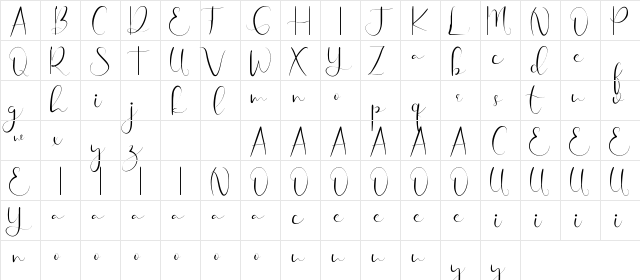
Gingar Bread Demo Script Regular
| Foundry | Edric Studio |
| Designer | Widiyanti & Suci Anita |
Design Context for Gingar Bread Demo Script Typeface
Gingar Bread Demo Script brings a calligraphic fluidity to the page — its connecting strokes and expressive curves give it an unmistakably human quality.